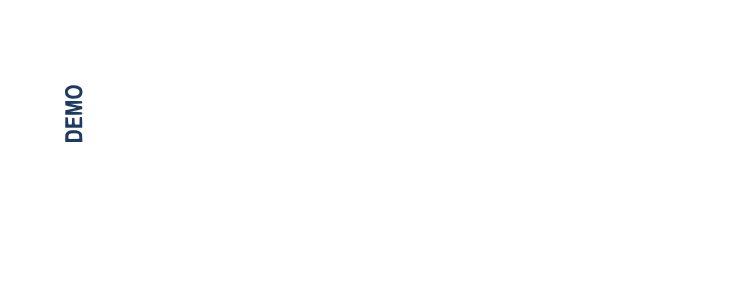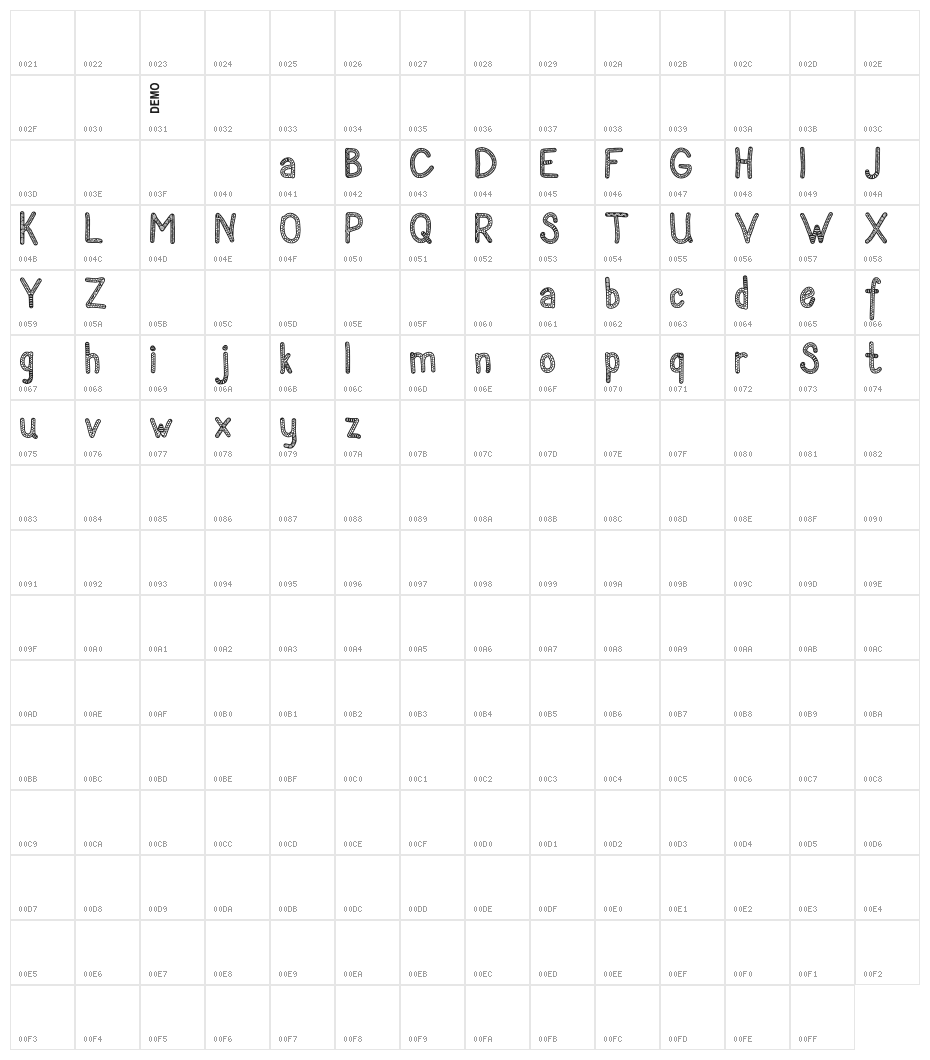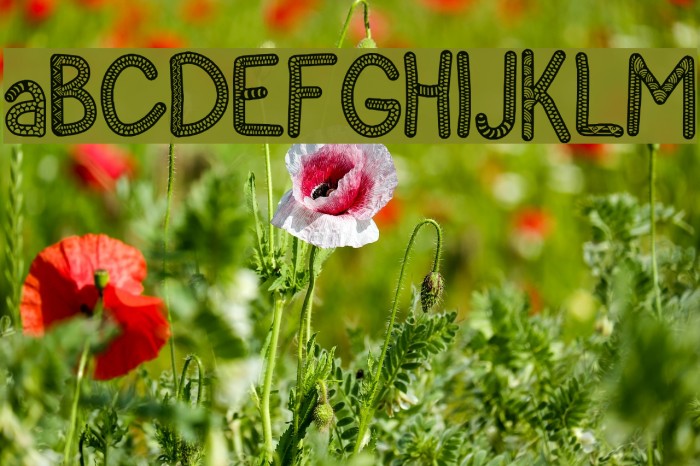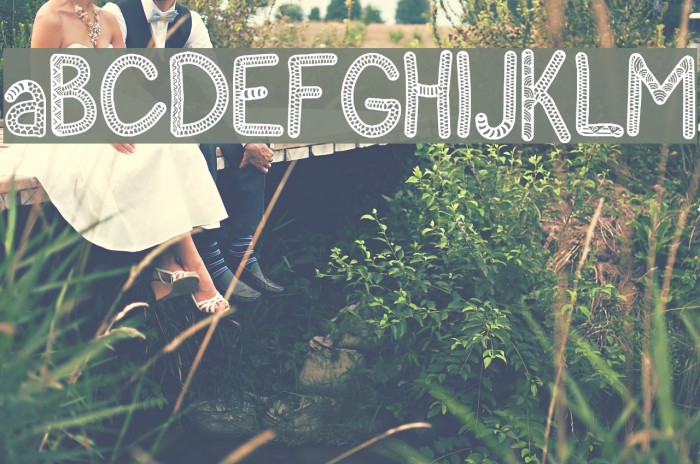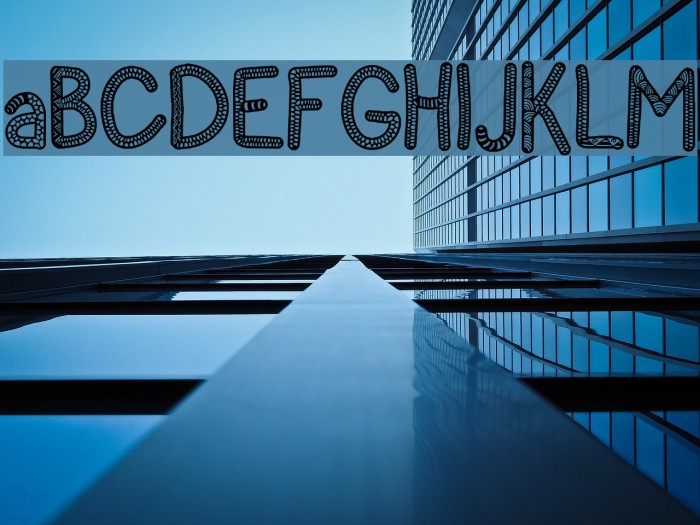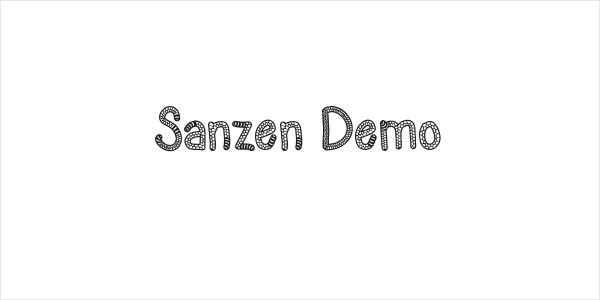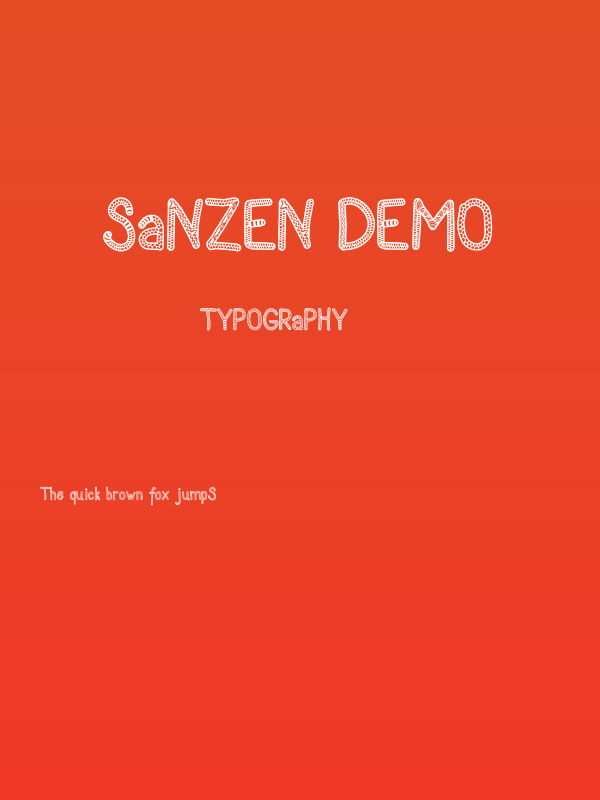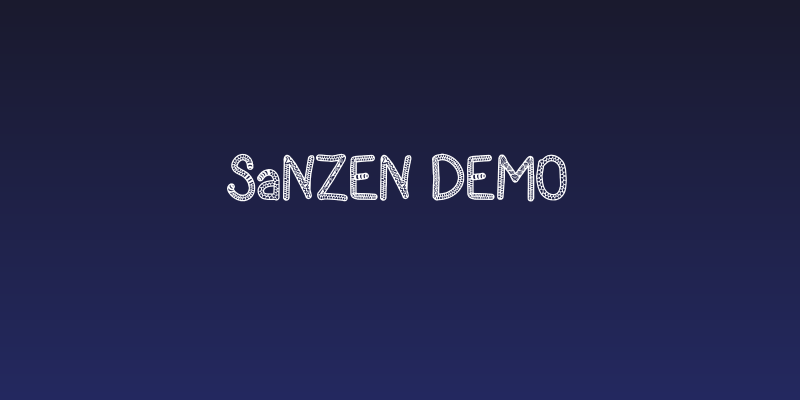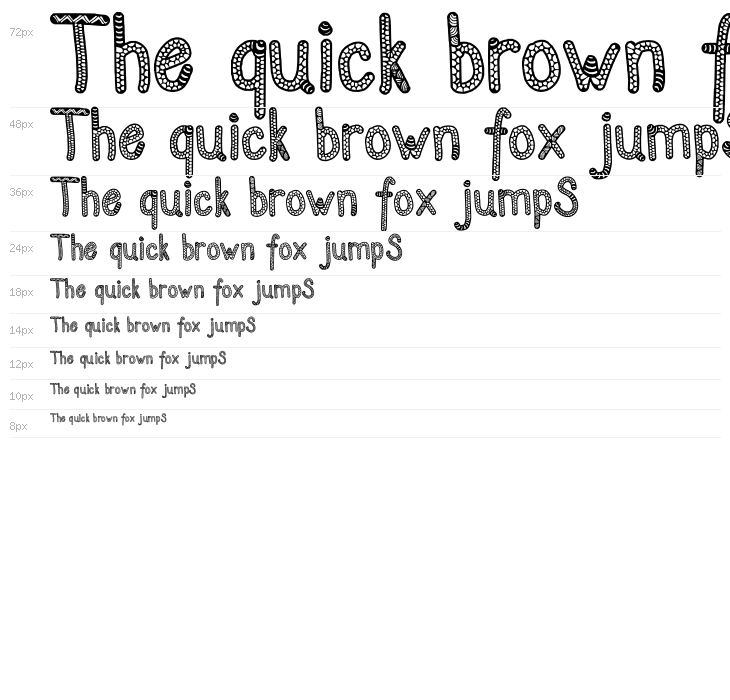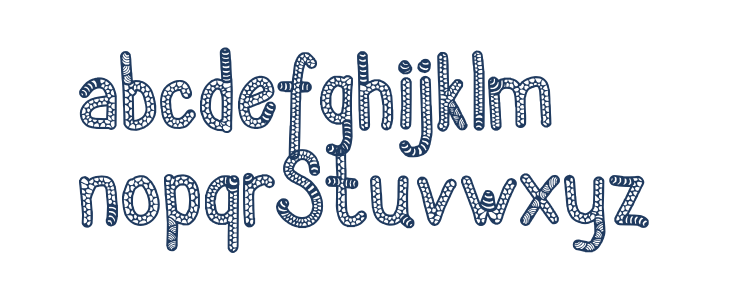
Sanzen Demo Font
Sanzen Demo Description
This font features a playful and decorative style, characterized by its unique textured pattern within each letter. The design incorporates a hand-drawn aesthetic, with each character appearing as if it is woven or knitted, adding a sense of depth and creativity. The uppercase and lowercase letters maintain a consistent style, with rounded edges and a bold presence. The numbers and special characters follow the same intricate design, ensuring a cohesive look across all elements. This font is ideal for projects that require a whimsical and artistic touch, making it perfect for creative branding, children's books, or playful event invitations.
| Proposed Projects | Ideal for creative branding, children's books, playful event invitations, and artistic projects. |